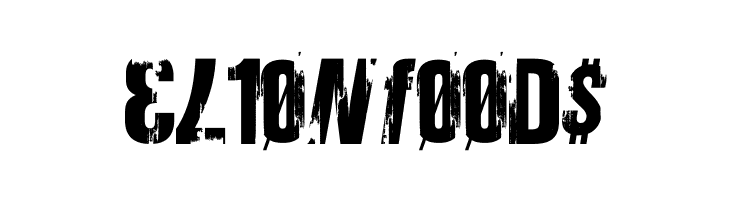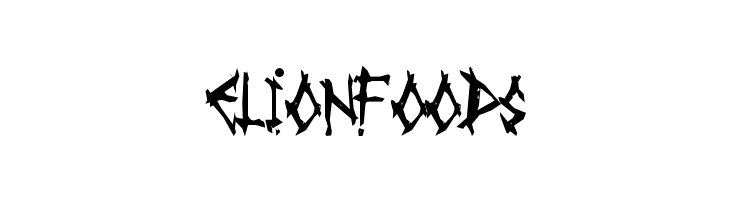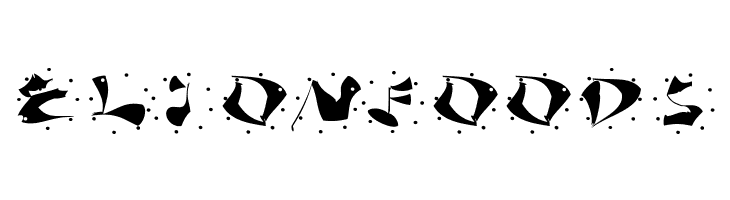
• AnarchicType
A chaotic, abstract font with fragmented and distorted letterforms.
• AnarchicType Slanted
A chaotic and abstract font with bold, fragmented letterforms.
• Anarchistica
A playful, hand-drawn font with irregular, dynamic letterforms.
• AnarchoCaps
A bold, chaotic, and abstract decorative font with unique, fragmented letterforms.
• AnarchoSquares
A decorative and artistic font with abstract, square-enclosed characters.
• Anarchy
A bold, distressed font with a grunge, rebellious style.
• Anarchy Brothers
A bold, brushstroke font with a rebellious and chaotic style.
• Anarchy Tantrum
A bold, jagged font with a rebellious, energetic vibe.
• AnarchySans
A rough, hand-drawn font with an edgy, rebellious style.
• AnarK